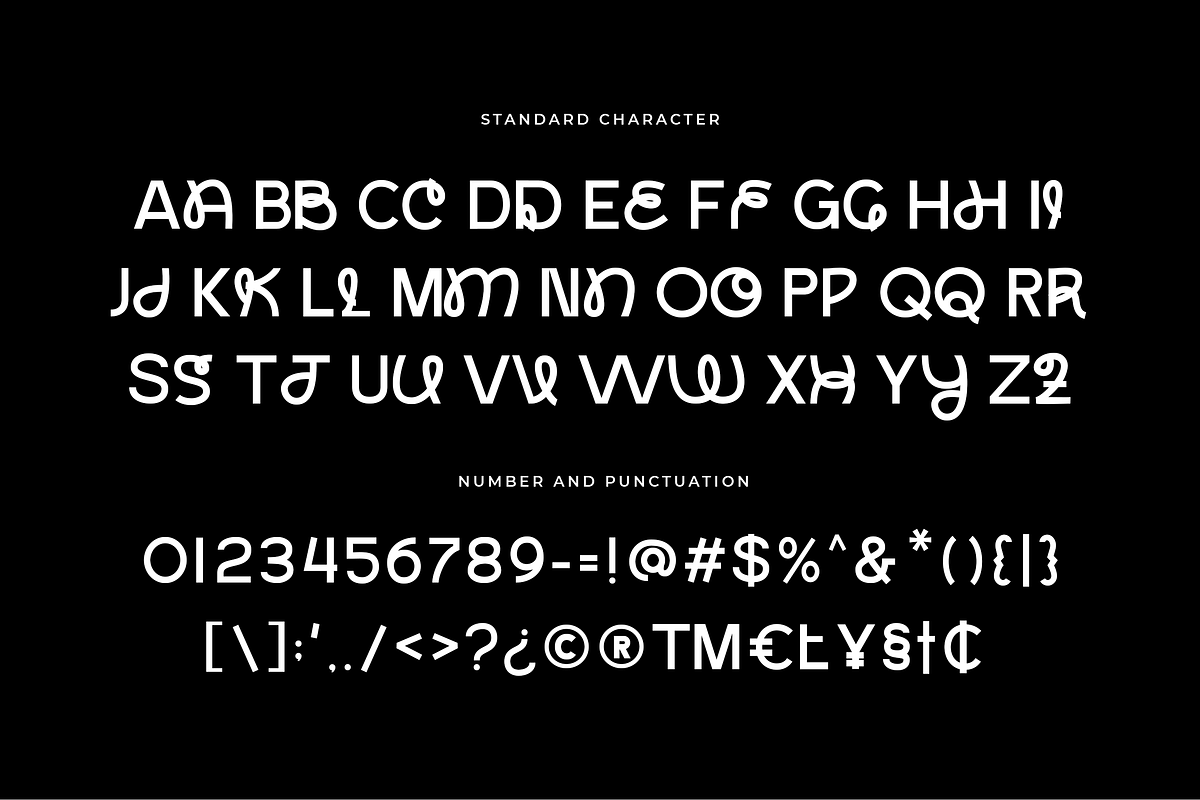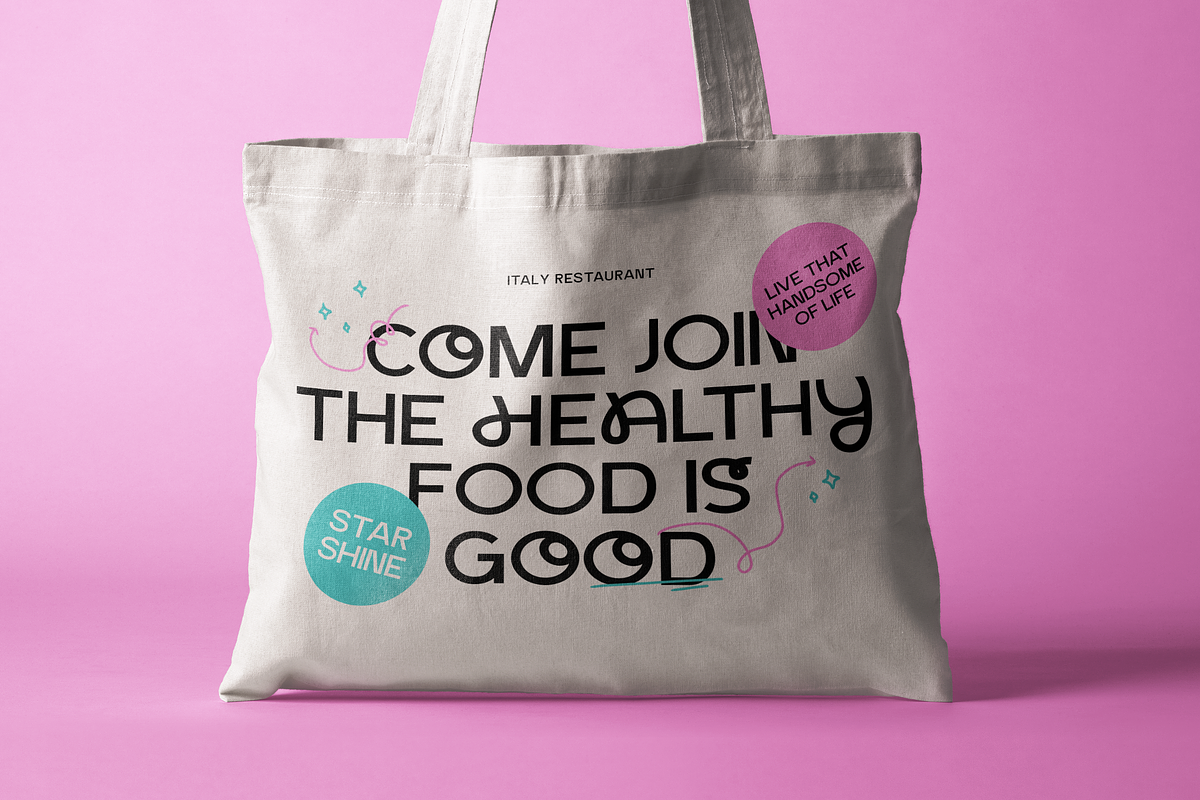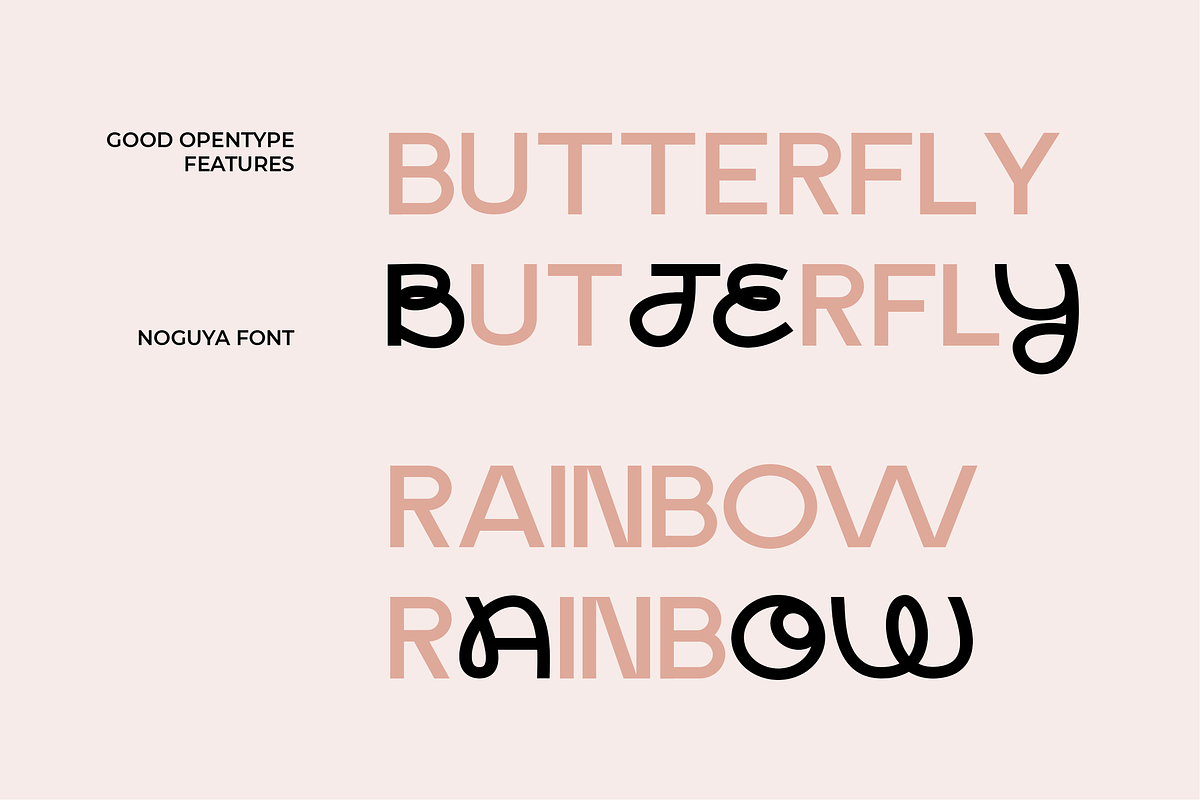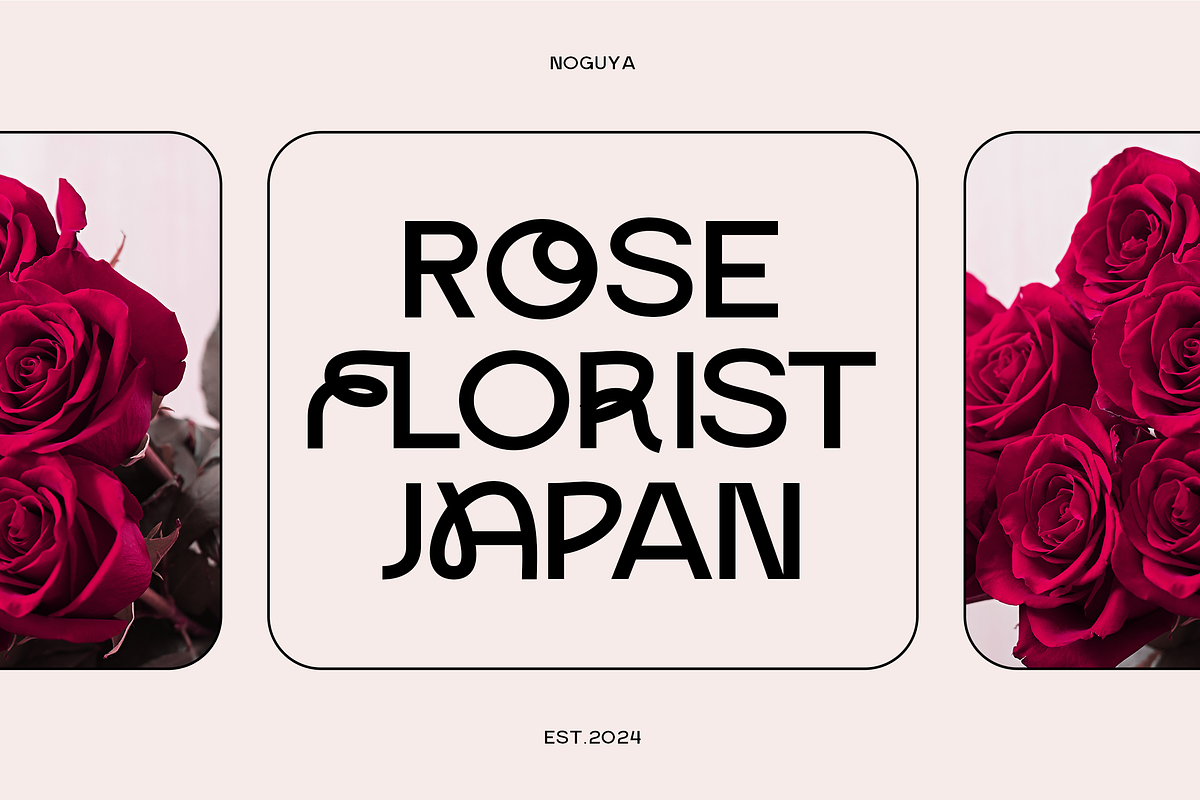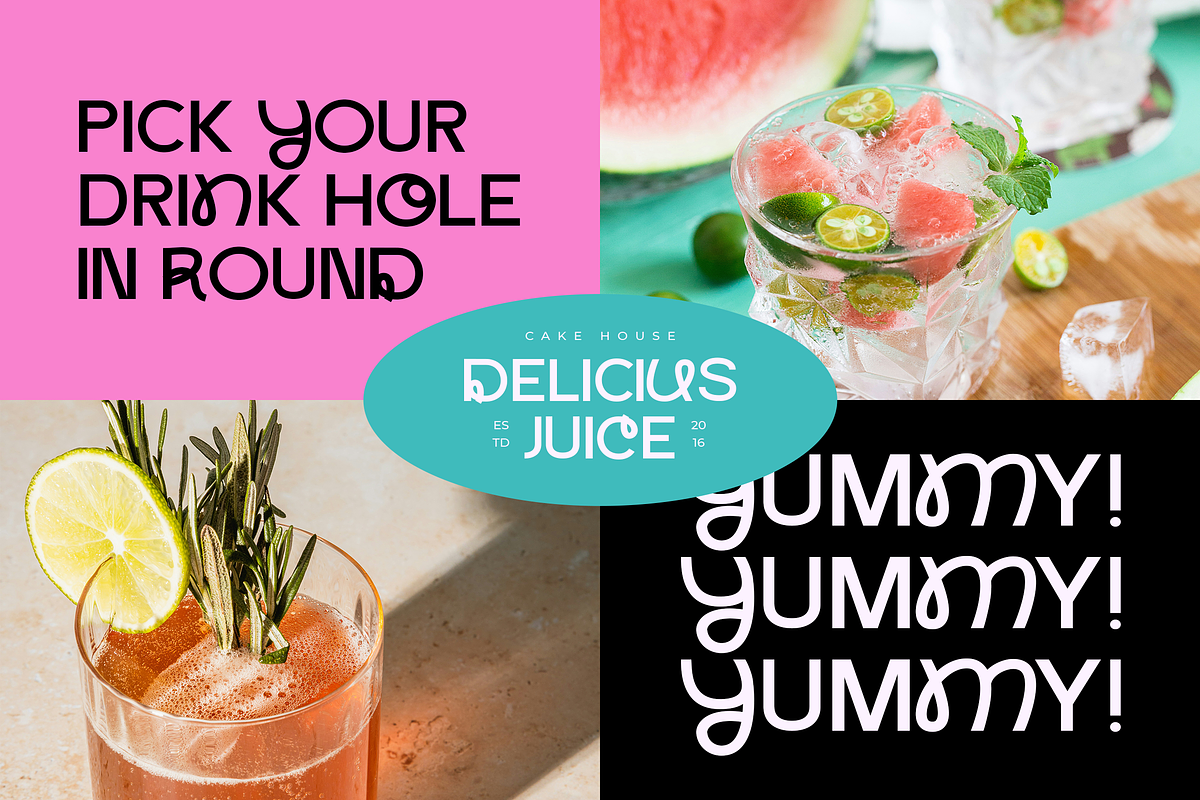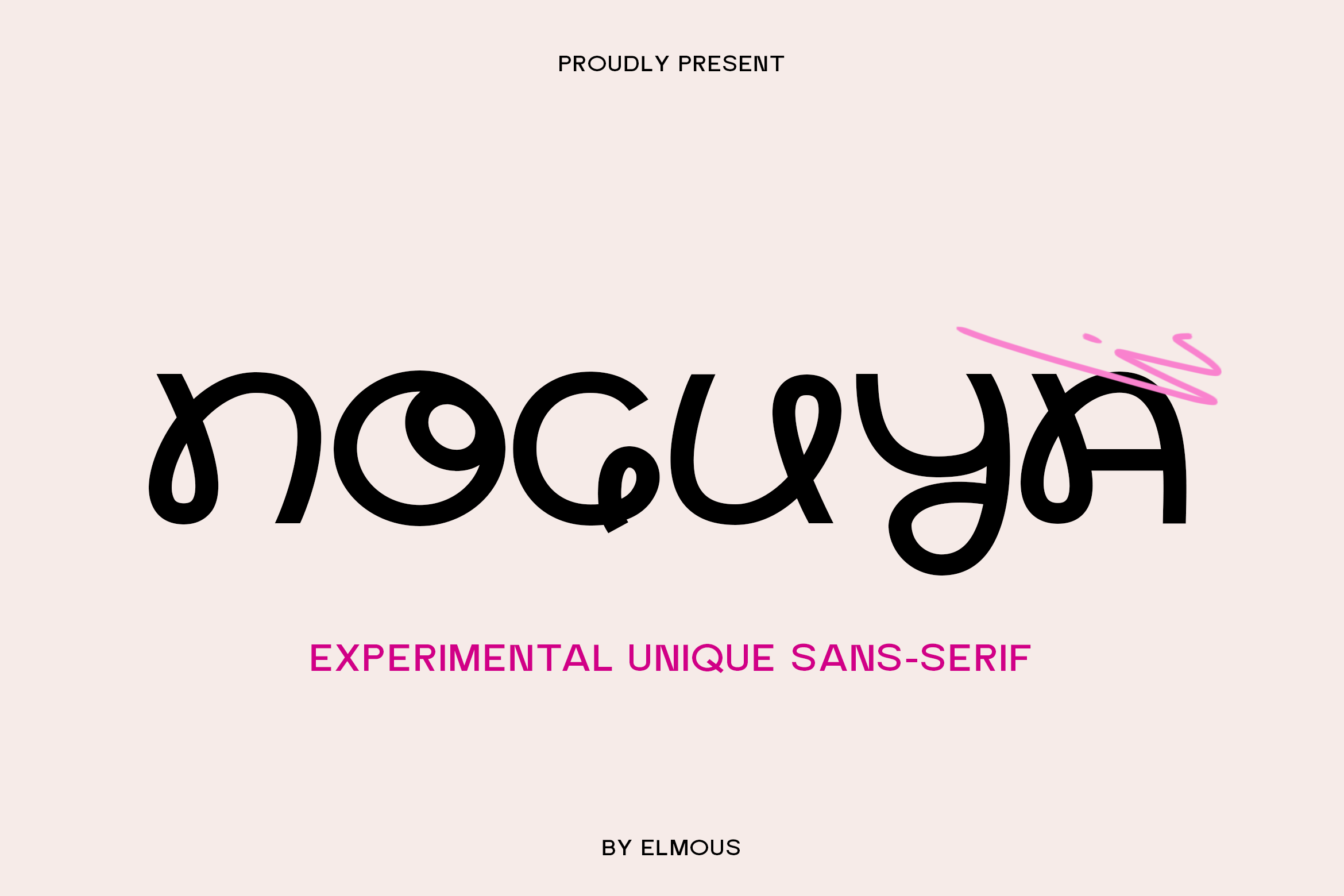
Noguya - Experimental Unique Font
Introducing Noguya, an experimental and unique sans serif font that masterfully blends clean, modern lines with a touch of playful whimsy. Noguya is designed to be a standout choice for projects that need a friendly, approachable, yet distinctive voice.
Its clean, monolinear strokes are twisted into unconventional shapes, featuring charming loops, unexpected curves, and quirky details that are sure to capture attention.
Noguya is the perfect typeface for logos, branding projects, social media graphics, merchandise like tote bags, apparel, food or beverage packaging, and any design that requires a font with both character and clarity.